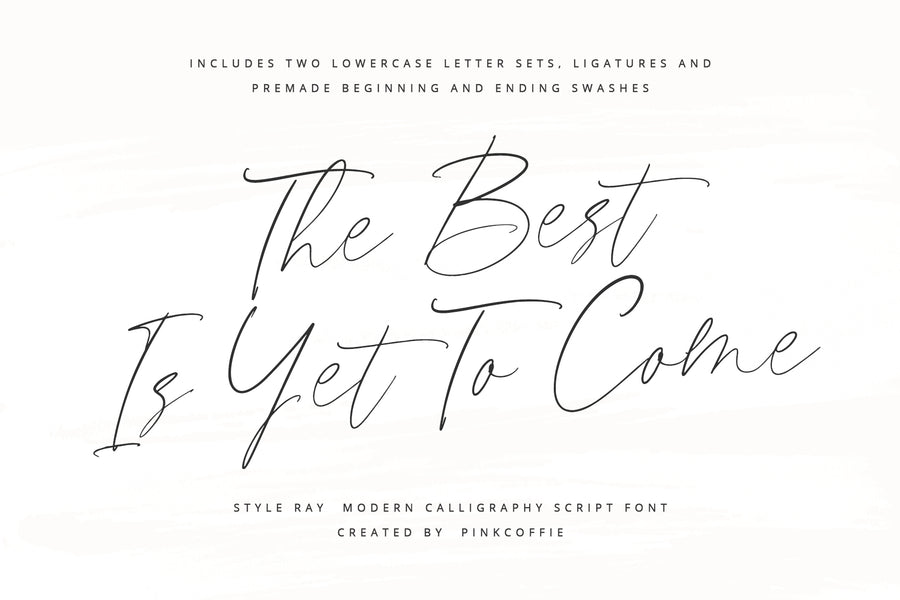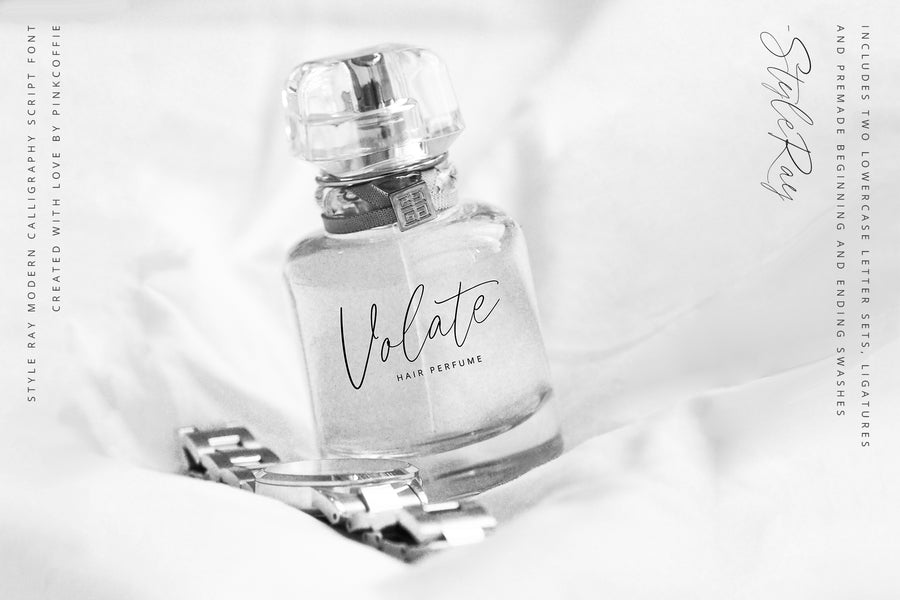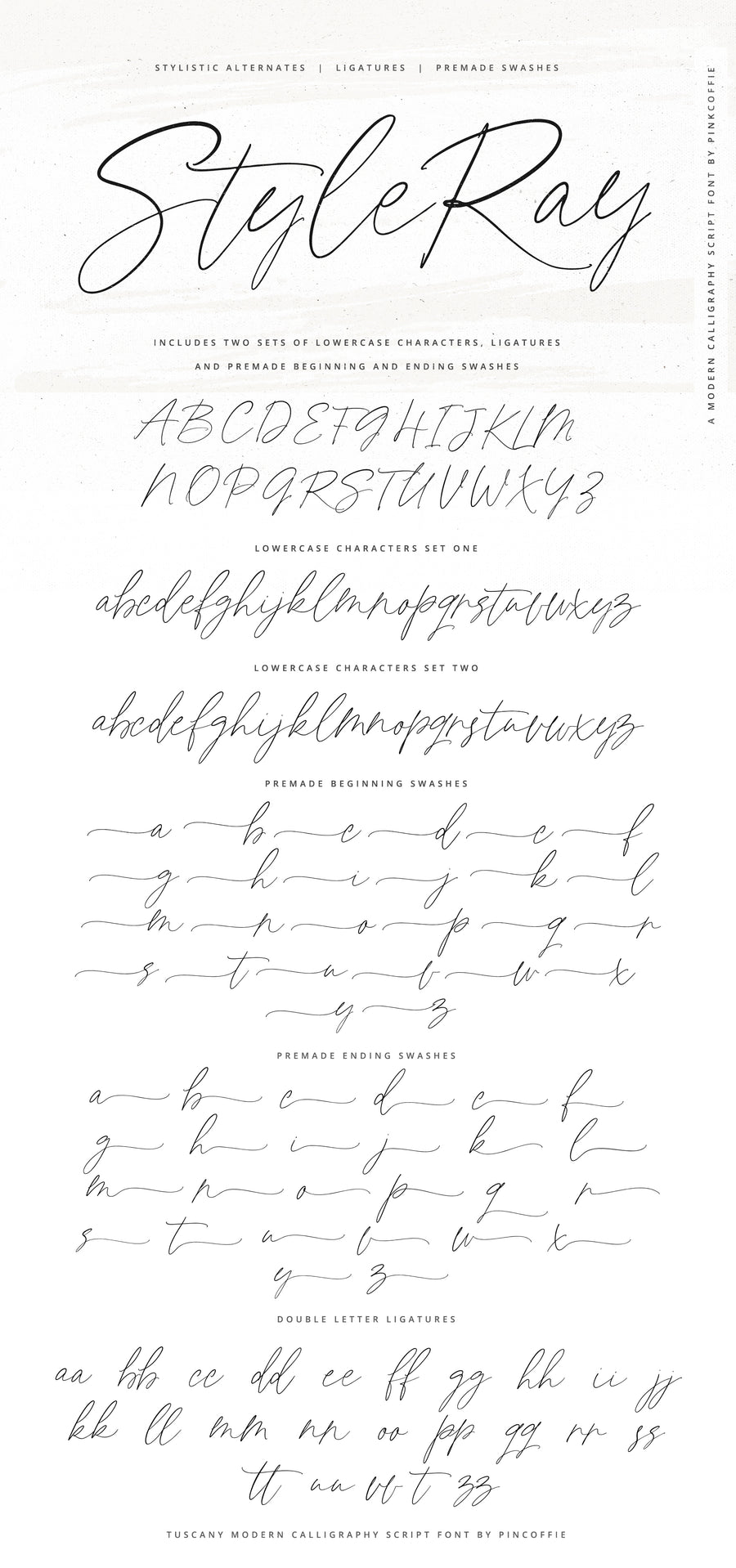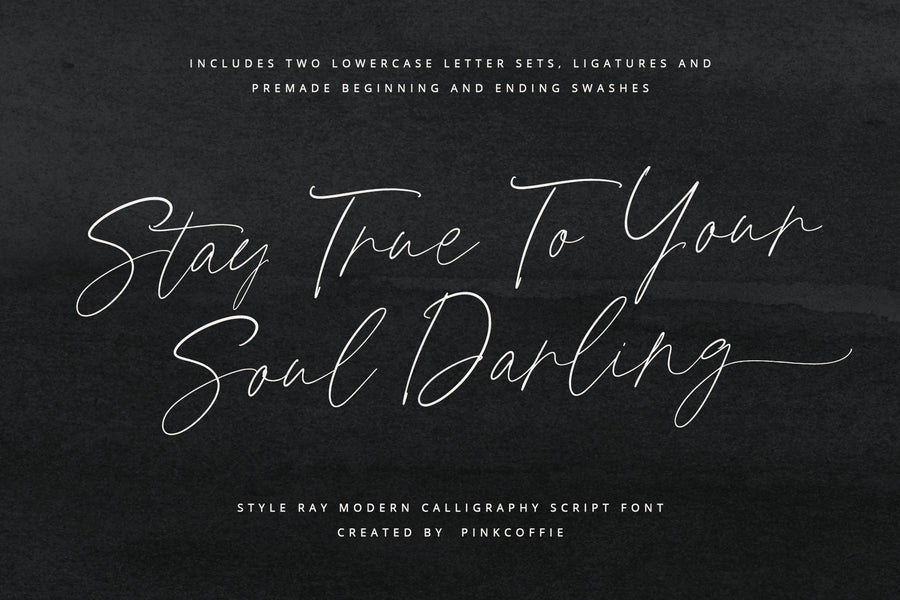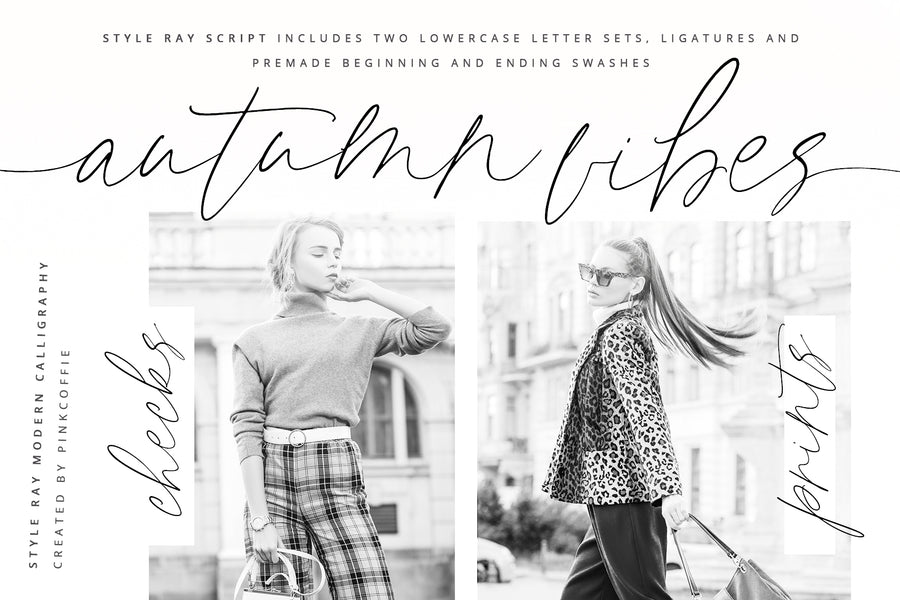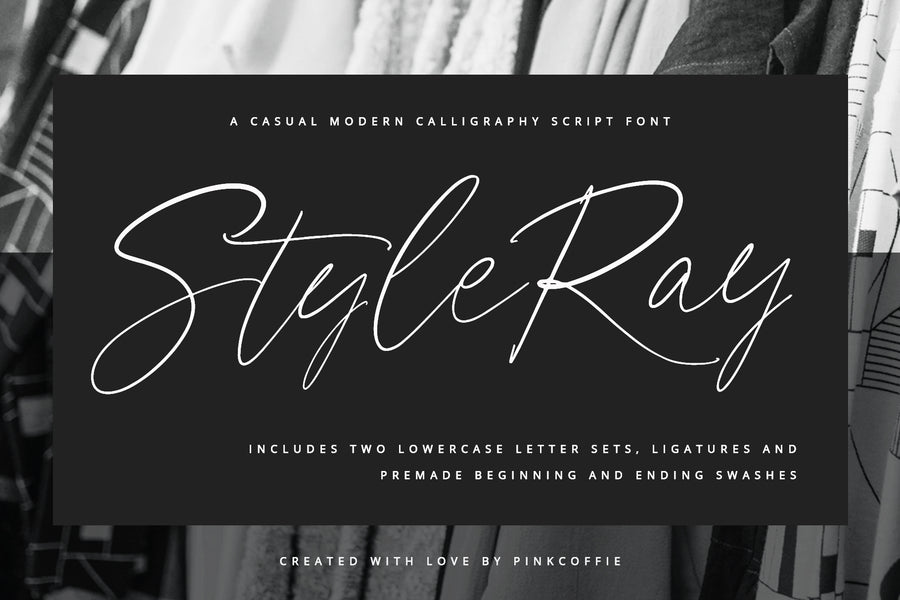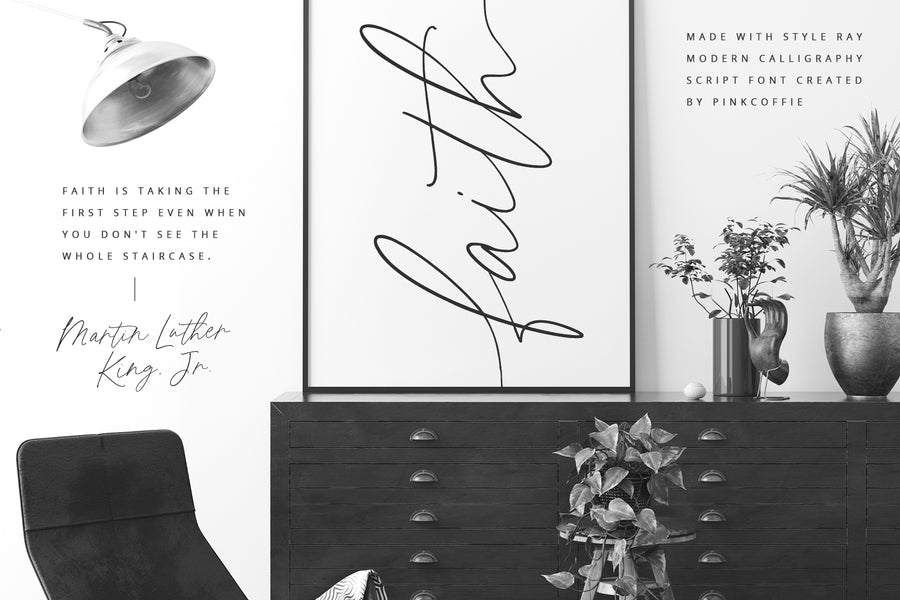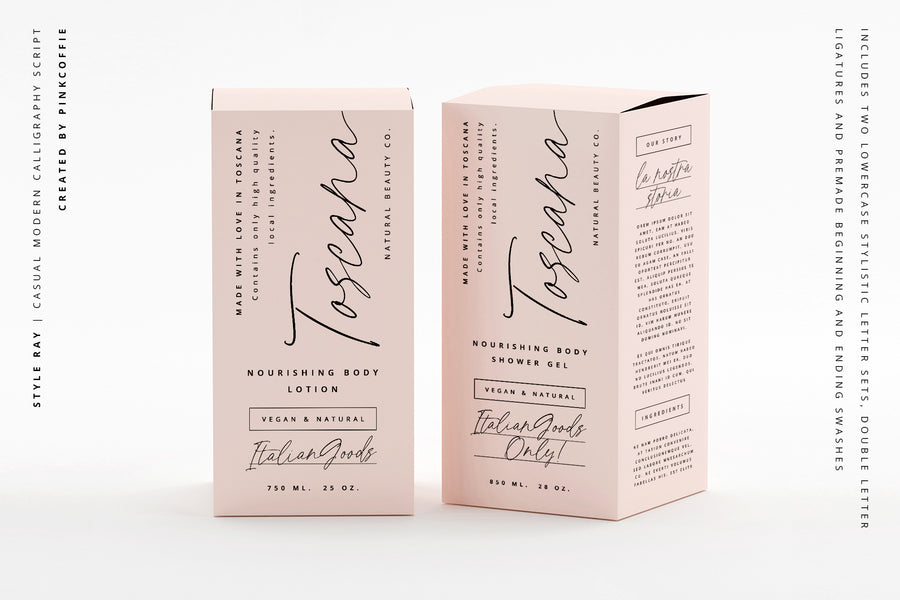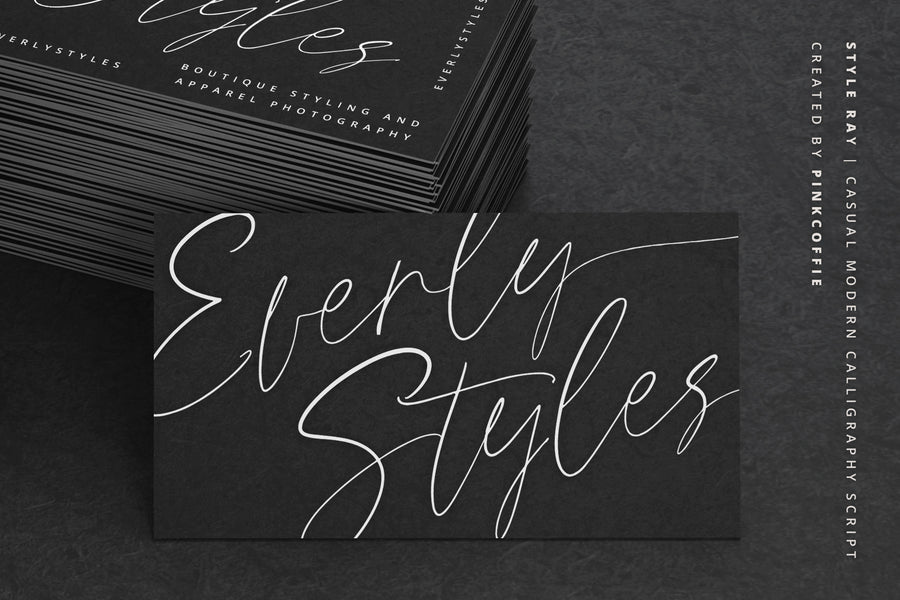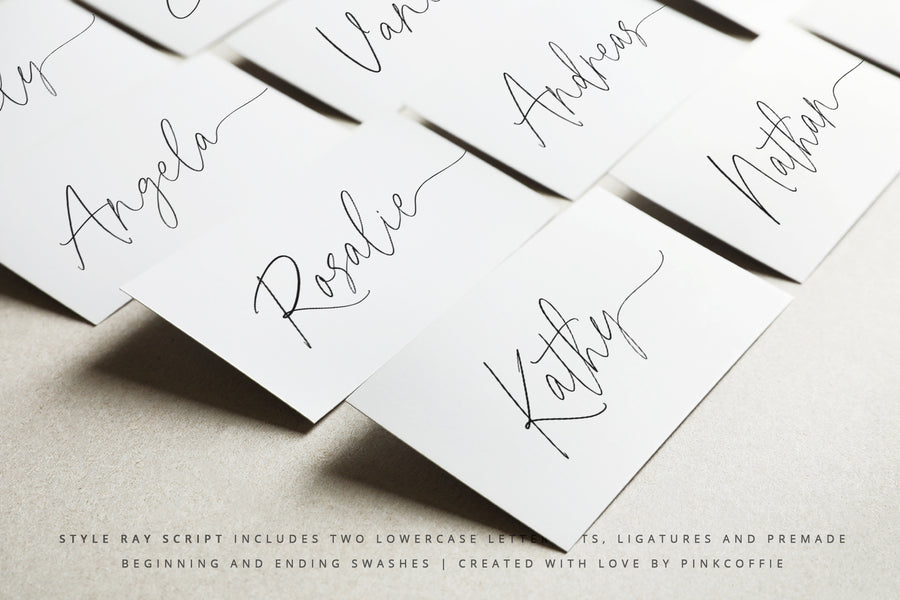
Style Ray | Casual Chic Script Font
Pink Coffie
Say hello to Style Ray, a stylish casual modern calligraphy script packed with two lowercase letter sets, a whole set of double letter ligatures, multilingual support, and premade beginning and ending lowercase swashes. ❤
This little script is versatile enough to work in various projects including logos and branding, greeting cards, invitations & stationery, minimal prints + posters and chic and feminine packaging designs.
• Style Ray - The main font containing the regular and alternate lowercase characters, ligatures and premade beginning and ending lowercase swashes.
• Style Ray Alt - Includes lowercase letter alternates instead of the regular lowercase set.
• Style Ray Ligatures - Includes the lowercase double-letter ligatures only.
• Style Ray Left Swashes - Includes the premade left lowercase swashes only.
• Style Ray Right Swashes - Includes the premade right lowercase swashes only.